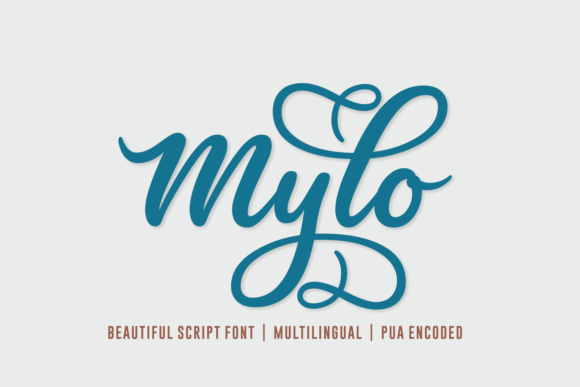
Behold, Mylo Font - a captivating script font that dances across your screen with grace and elegance. Its enchanting strokes, reminiscent of a gentle summer breeze, flow seamlessly to create a visual symphony that will leave you spellbound.
Mylo Font is not merely a font; it's an artistic expression, a reflection of your unique style and personality. Whether you're a designer yearning for a touch of whimsy, a writer seeking a font that captures the essence of your words, or a crafter looking to add a personal touch to your creations, Mylo Font is your perfect companion.
Picture the joy of crafting beautiful cards, invitations, and posters that speak volumes without uttering a single word. Mylo Font's playful yet sophisticated charm will transform your designs into captivating works of art. Its unique characters, each with its own captivating personality, will dance harmoniously on your canvas, creating a visual feast that will leave your audience breathless.
Immerse yourself in the world of Mylo Font and let your creativity soar. Its versatility knows no bounds, making it the perfect choice for a myriad of projects. From social media posts that demand attention to eye-catching logos that leave a lasting impression, Mylo Font possesses the versatility to elevate your designs to new heights.
But Mylo Font's allure extends beyond its visual appeal. It's a font that speaks to your emotions, evoking feelings of joy, warmth, and nostalgia. Its soft curves and delicate flourishes will add a touch of romance and charm to any project, leaving your audience with a sense of wonder and longing.
So, embrace the beauty of Mylo Font and embark on an artistic journey like no other. Let its enchanting strokes guide you as you create designs that captivate and inspire. Experience the magic of Mylo Font today and witness the transformation of your creative vision into a breathtaking reality.